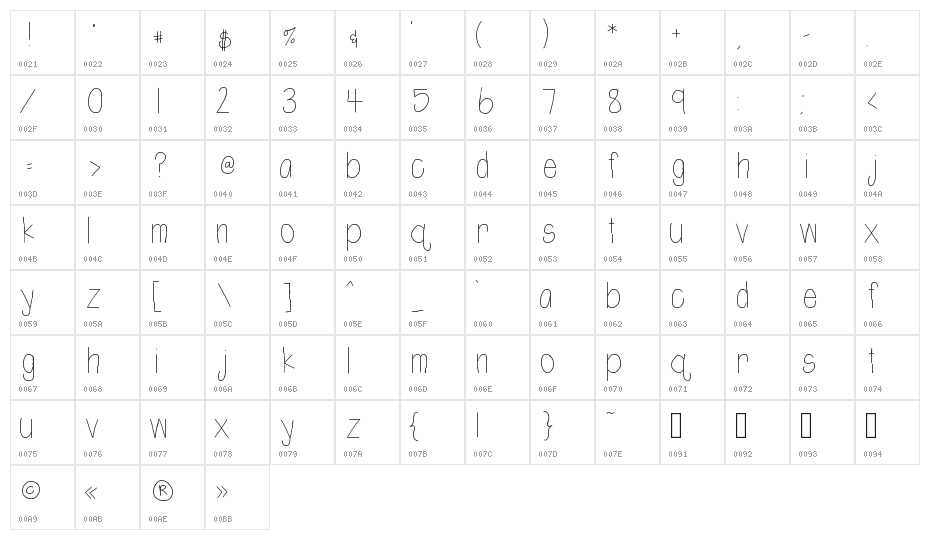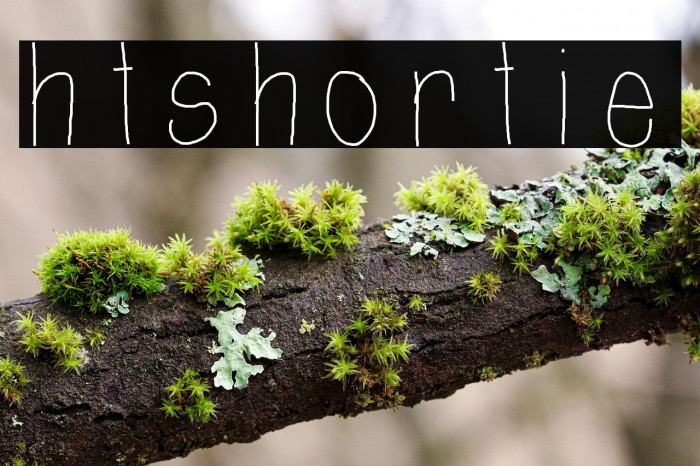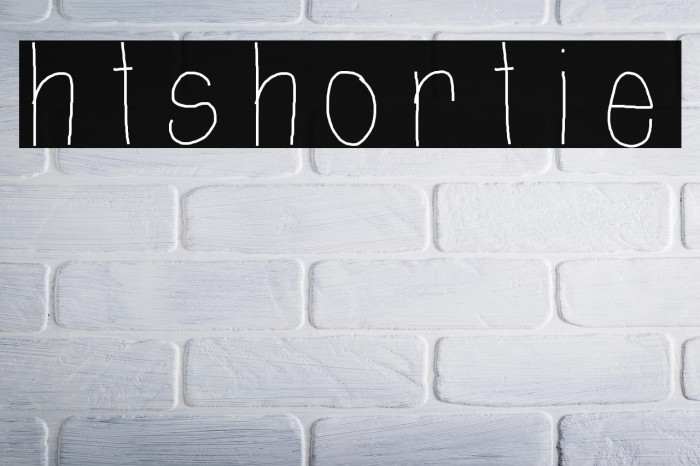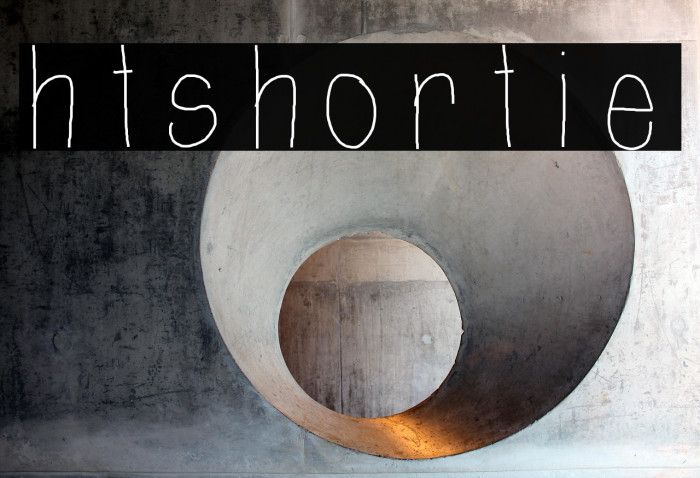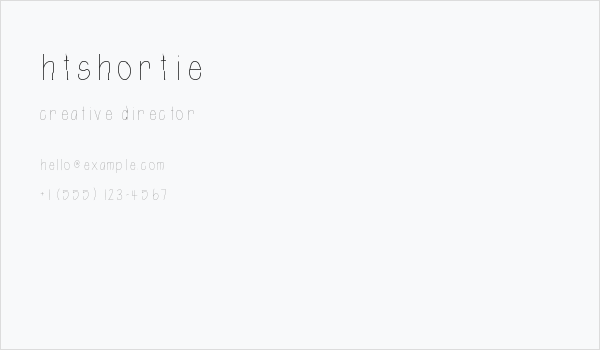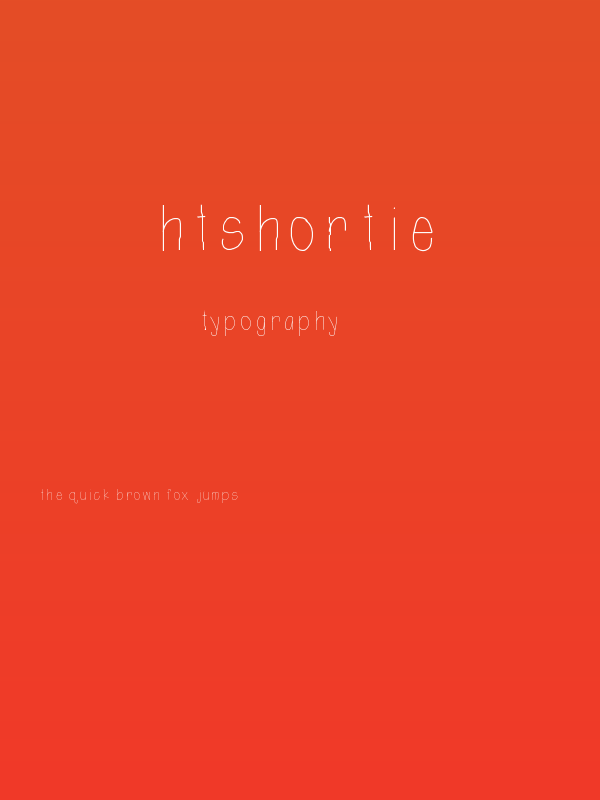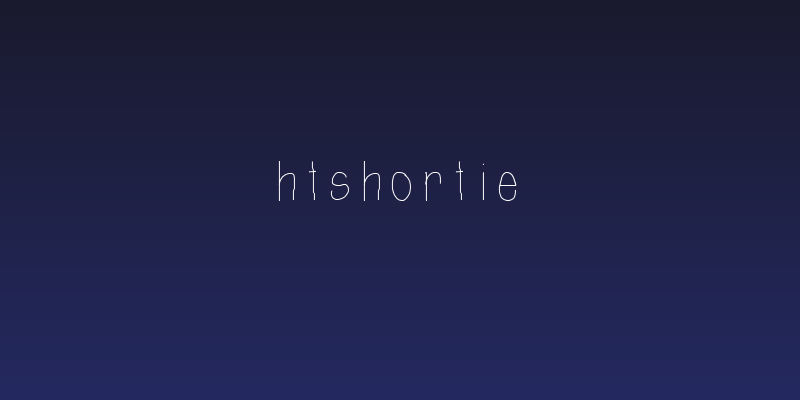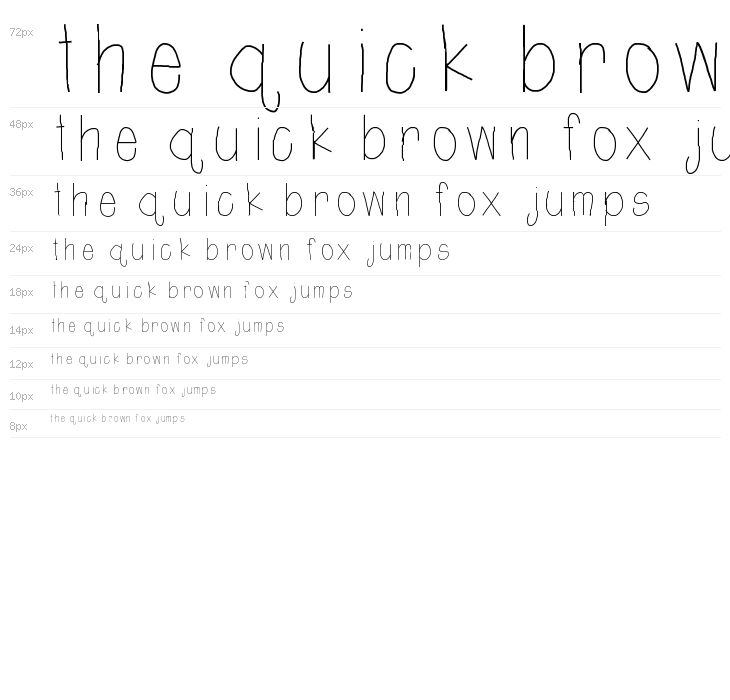
htShortie Font
htShortie Description
This font features a playful, handwritten style with a casual and approachable feel. The characters are thin and elongated, giving them a whimsical appearance. The lowercase letters have a slight slant, adding to the informal vibe, while the uppercase letters maintain a consistent height. The numbers and special characters follow the same playful design, making the font suitable for creative and informal projects. The overall look is light and airy, with a sense of movement and personality.
| Proposed Projects | Ideal for children's books, greeting cards, casual invitations, and playful branding. |